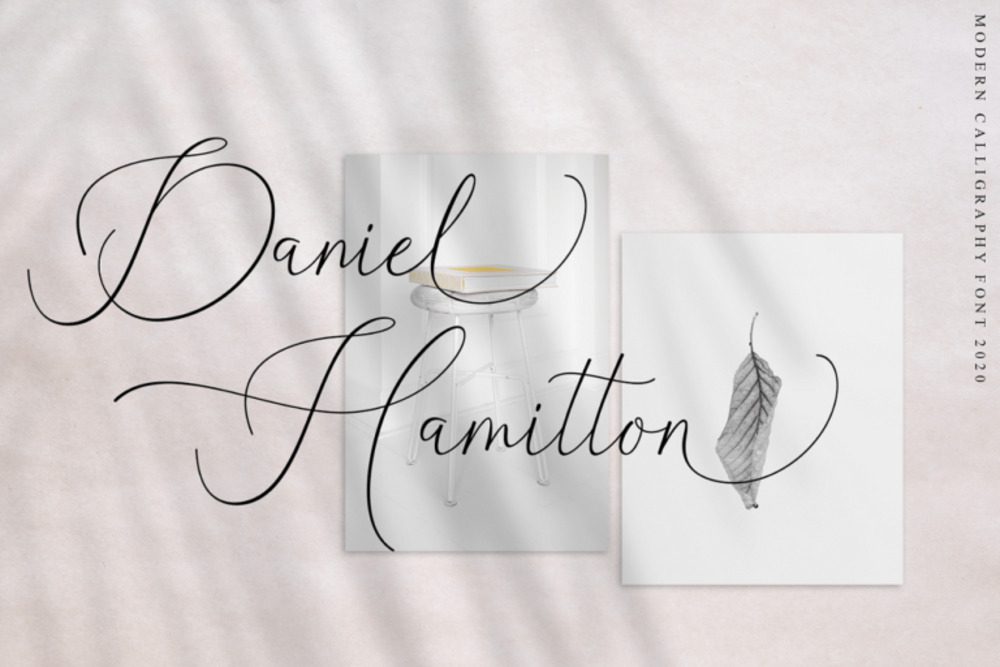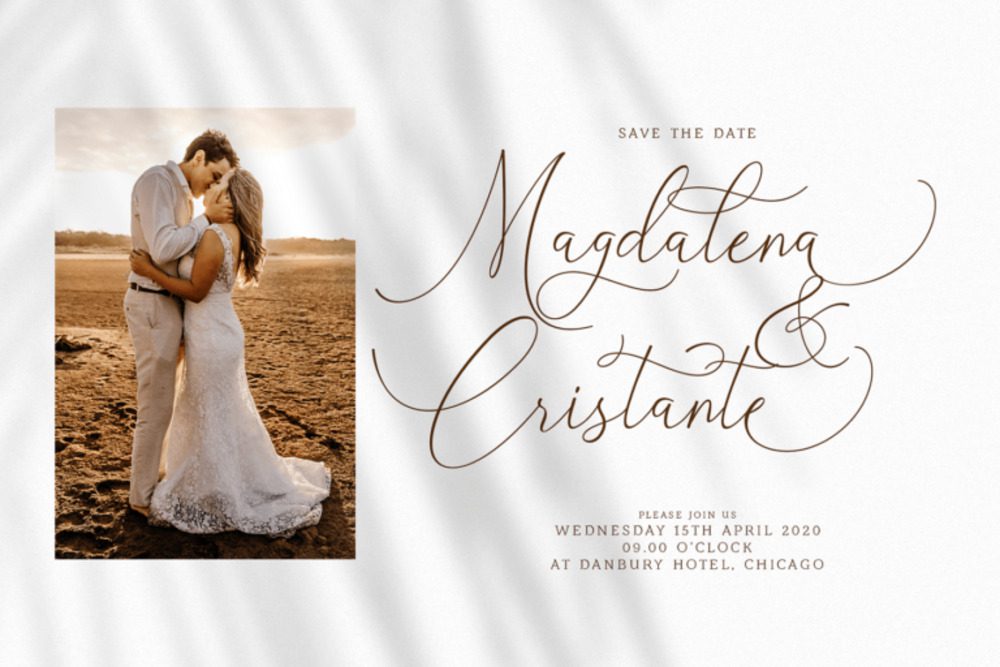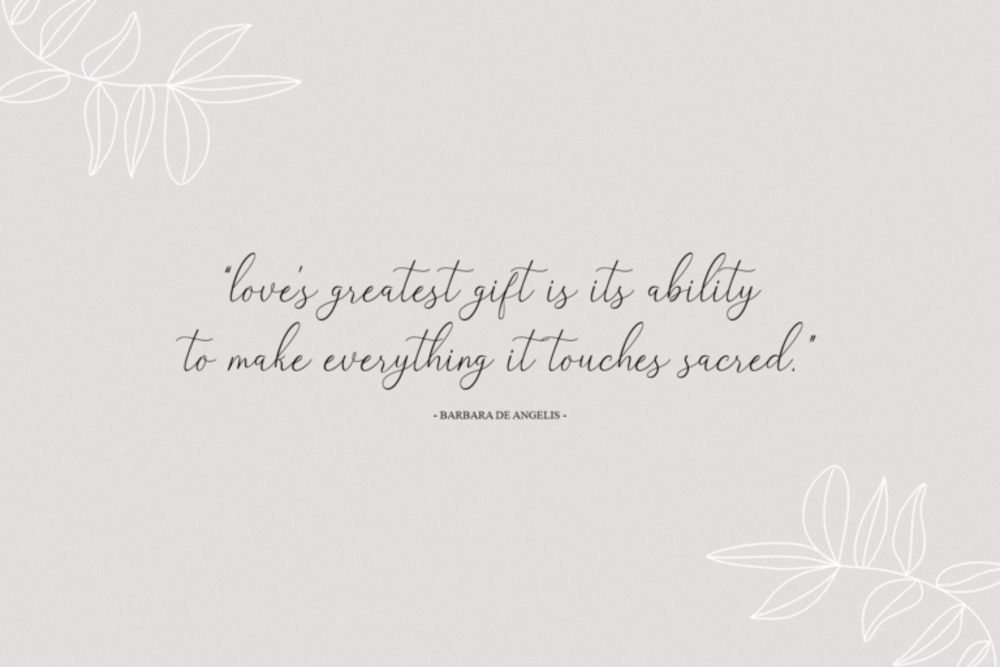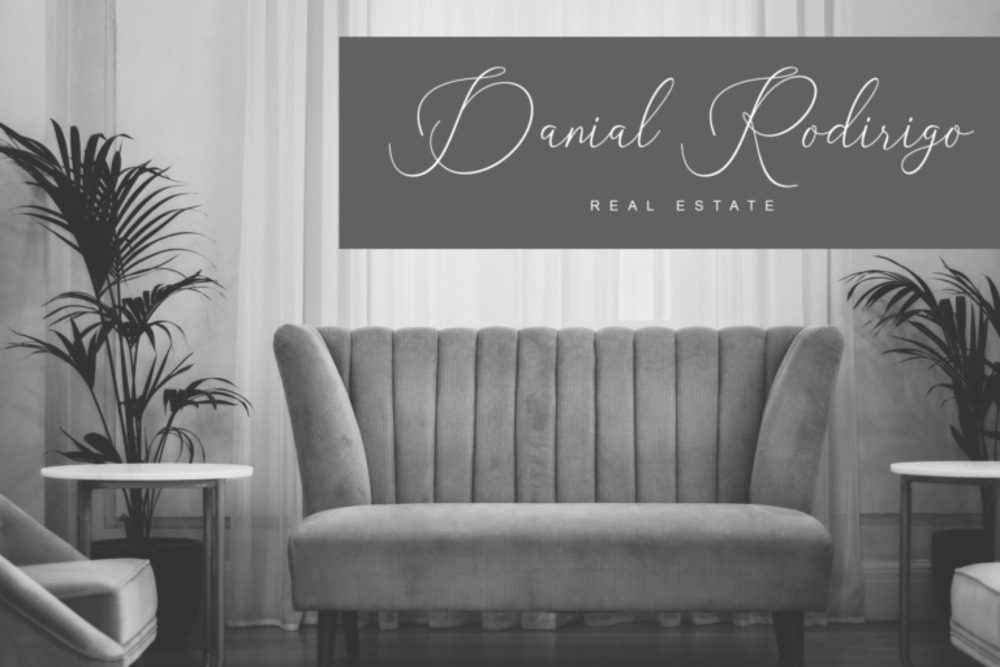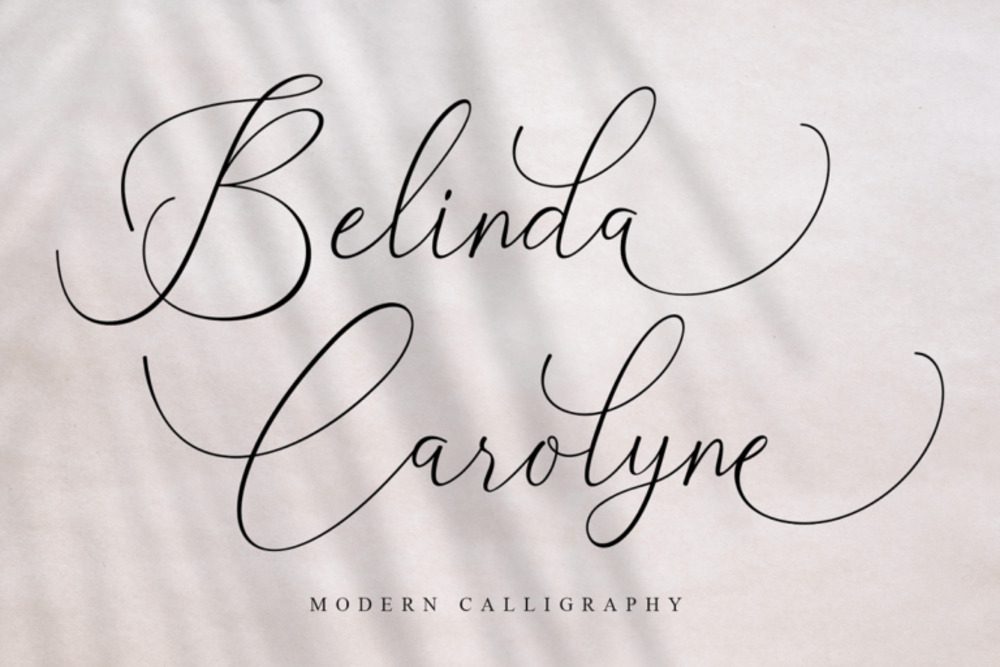
Belinda Carolyne Font
Belinda Carolyne Font is a graceful and contemporary script typeface, blending classic calligraphy with a modern flair. Its smooth, flowing lines and refined curves create an elegant aesthetic perfect for invitations, branding, and decorative designs. This font adds a touch of luxury and sophistication, making every project feel timeless and stylish.